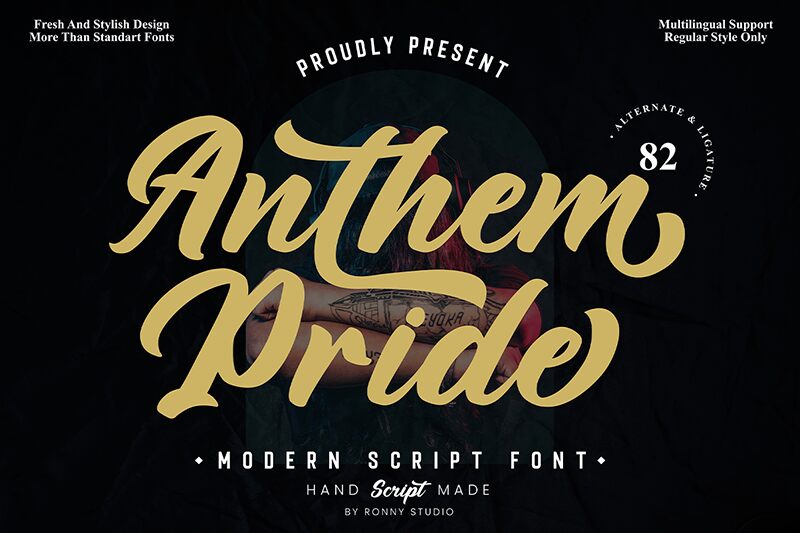
Anthem Pride
Introducing Anthem Pride, a modern handwritten font designed by Rony Rizki Jaya. With its bold weight, Anthem Pride is perfect for making a statement in your creative projects, from logo designs to wedding invitations.